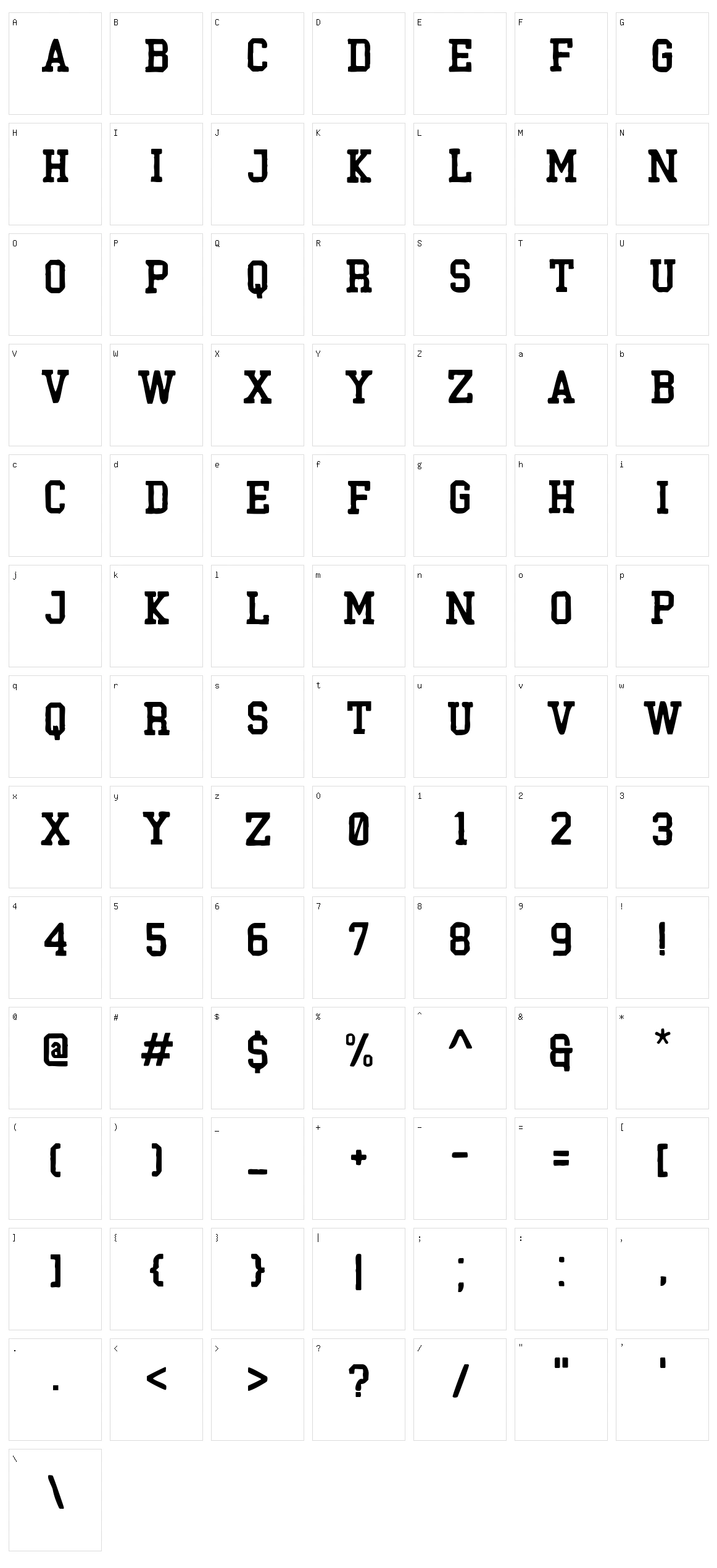
The free font Black Milk Rough is carefully designed by Rizka Prayuda, showcasing a thoughtful balance of creativity and usability and falls under the Old School font style. When you download the ZIP file, it contains only 23.26 KB of font files, making it lightweight and quick to download. Please review the license details below to understand permitted usage and distribution rights. If license information is not available, we recommend using this font for personal projects only or contacting the author directly for commercial usage permissions.